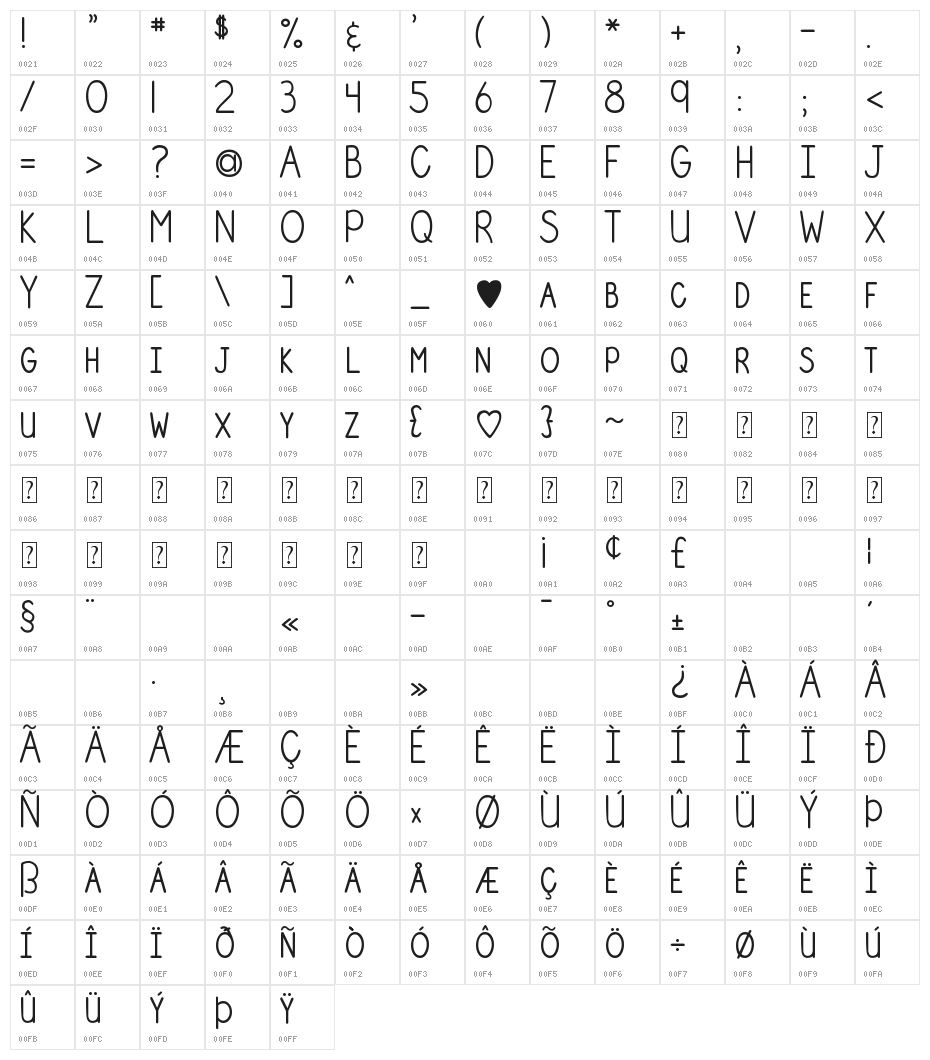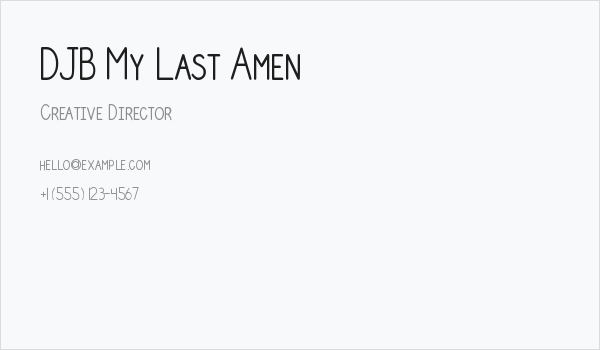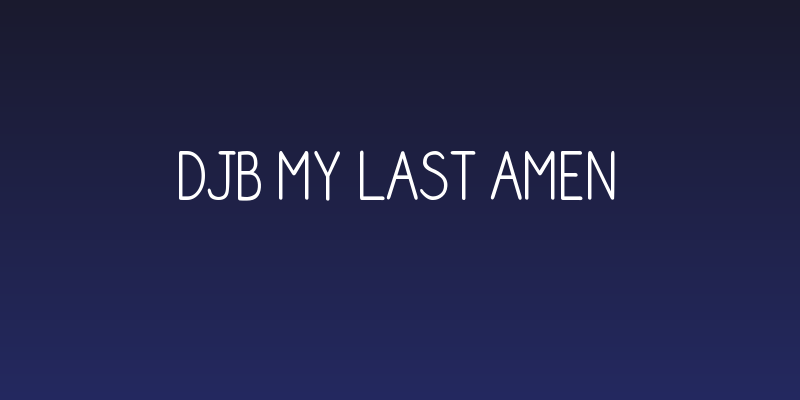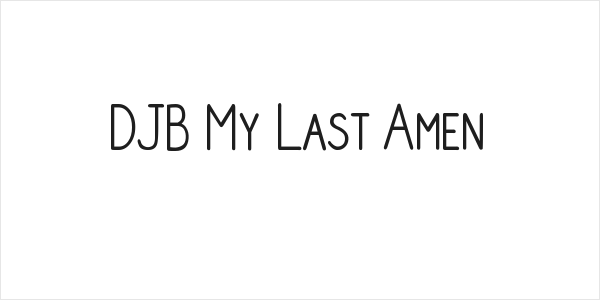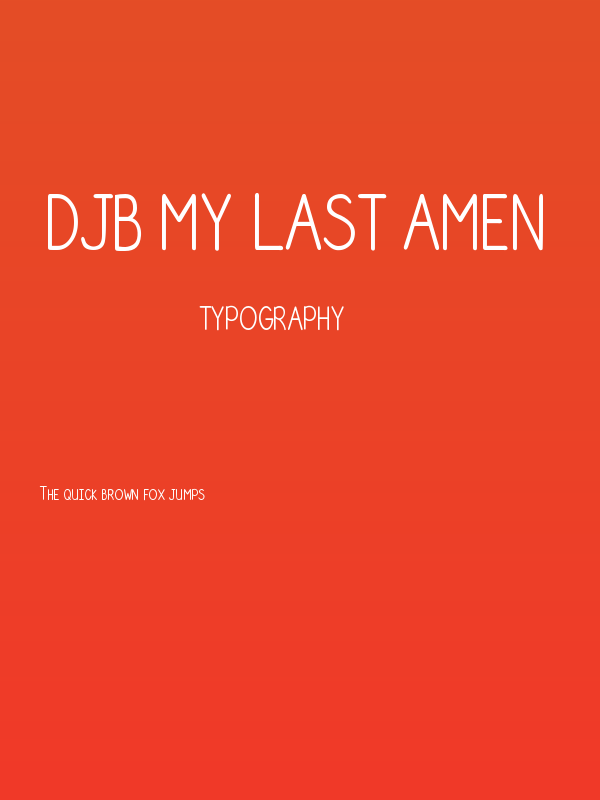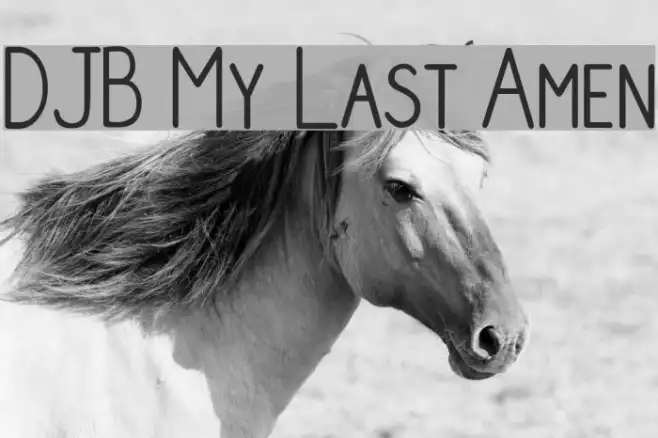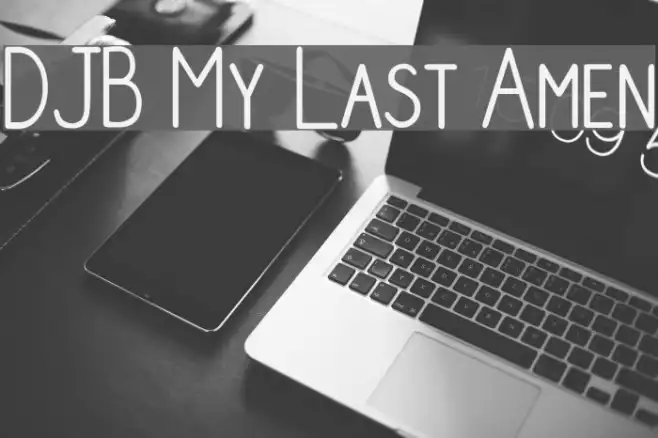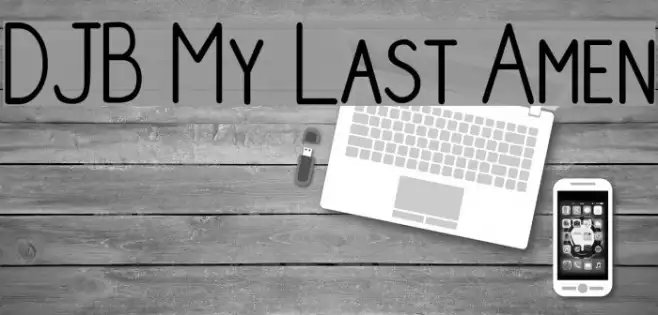
DJB My Last Amen Font
DJB My Last Amen Description
This font features a clean and modern design with rounded edges and a uniform stroke width, giving it a friendly and approachable appearance. The characters are evenly spaced, contributing to its readability. Its simplicity and clarity make it suitable for a wide range of applications. The uppercase and lowercase letters maintain a consistent style, while the numerals and special characters are designed to complement the overall aesthetic. The font's balance between formality and playfulness makes it versatile for both professional and casual contexts.
| Proposed Projects | Ideal for children's books, educational materials, websites, and branding projects that require a friendly and approachable look. |